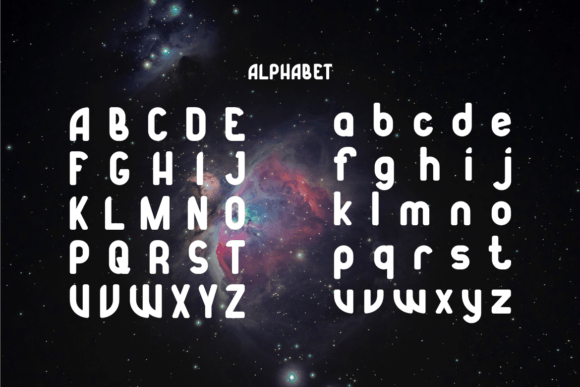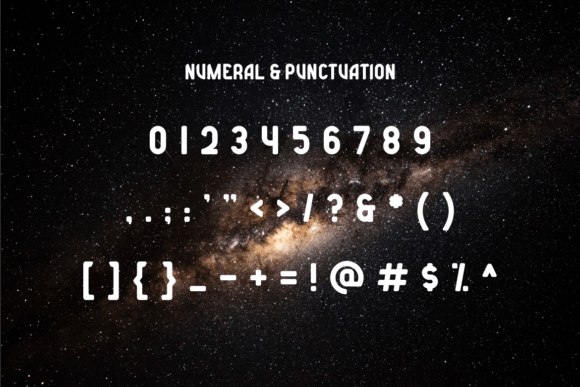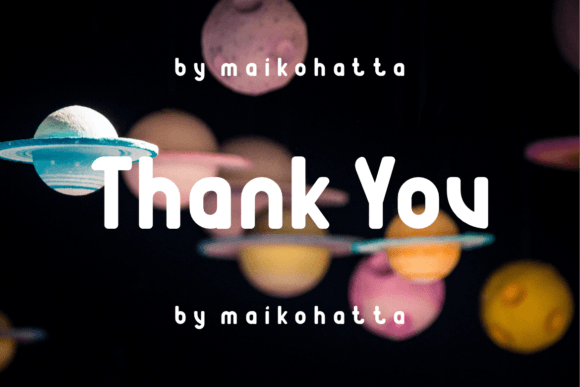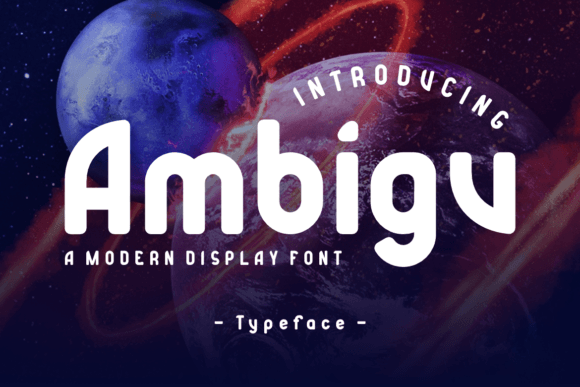
The Ambigu Font: A Bold and Versatile Sans Serif for Creative Projects
I’ll never forget the time I was working on a branding project for a trendy coffee shop. My client wanted a font that was modern, yet quirky, and would appeal to their young and artistic target audience. As I scoured the internet for the perfect font, I stumbled upon Ambigu – a cool and bold sans serif font that caught my eye. In this article, I’ll share my experience with Ambigu, its features, and how to make the most of it in your creative projects.
An Honest Review of Ambigu Font
Ambigu is a unique and stylish font that has won my heart. Here’s what I love about it:
• ✨ **Bold and eye-catching**: Ambigu is perfect for titles, headings, and statements that need to make an impact.
• ✅ **Versatile**: This font works well for a wide range of creative projects, from letterheads and titles to stationery and more.
• 💡 **OpenType features**: Ambigu supports OpenType features, which allow for advanced typography and glyphs.
However, no font is perfect, and Ambigu has a few quirks:
• 🤔 **Limited ligatures**: While Ambigu has some ligatures, it’s not the strongest in this area.
• ⚠️ **Not ideal for body text**: Due to its bold nature, Ambigu might not be the best choice for long blocks of body text.
The Story Behind Ambigu Font
Ambigu was designed by a team of creatives who wanted to create a font that would stand out in a crowded design landscape. Inspired by modern typography and geometric shapes, Ambigu was born. While the designer’s story might be fictional, the font’s impact on creative projects is real.
What is the best use for Ambigu font? Ambigu is perfect for titles, headings, and statements that need to make an impact.
Can I use Ambigu for body text? While possible, Ambigu’s bold nature makes it less ideal for long blocks of body text.